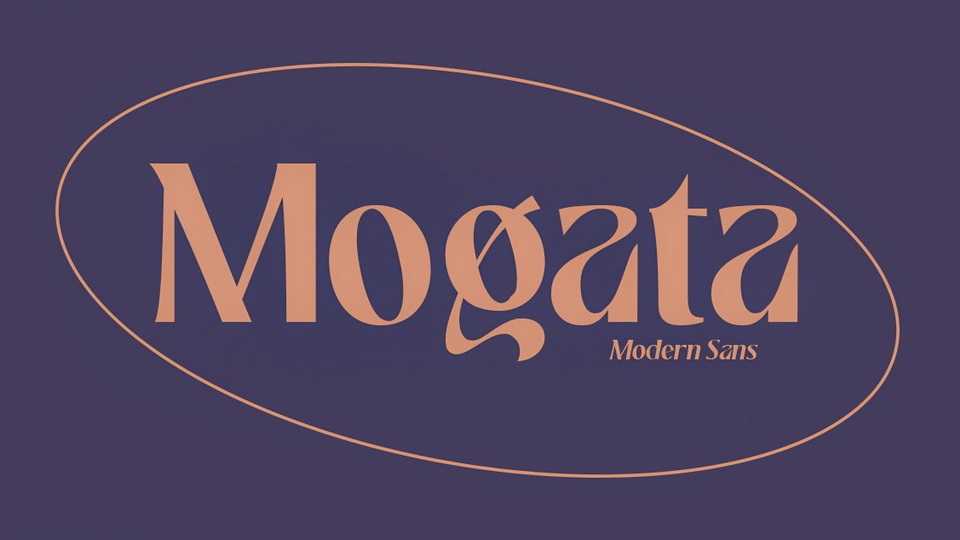
Download Mogata font, a modern sans serif typeface that works great in large and small sizes. Mogata font is perfect for editorial projects, logo design, clothing branding, product packaging, magazine headers, or simply as a stylish text overlay to any background image.
Designer: Aqeela Studio